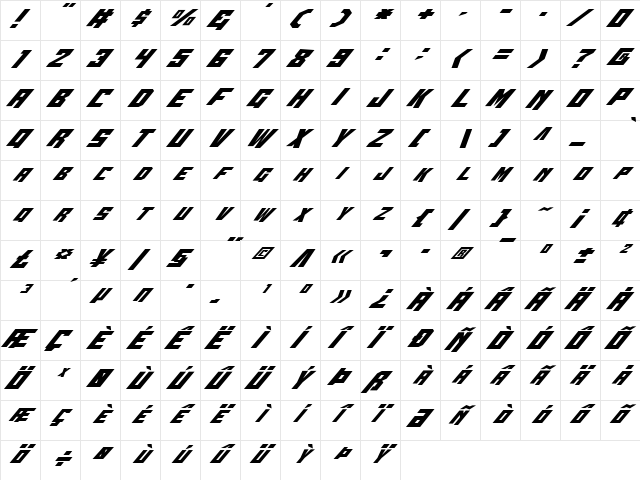
Whiskey Bravo Victor Italic Italic
| Designer | Dan Zadorozny |
Design Context for Whiskey Bravo Victor Italic Typeface
Whiskey Bravo Victor Italic is a composed and adaptable typeface that performs quietly and consistently across a wide range of design contexts. The slanted form adds forward momentum and visual energy.